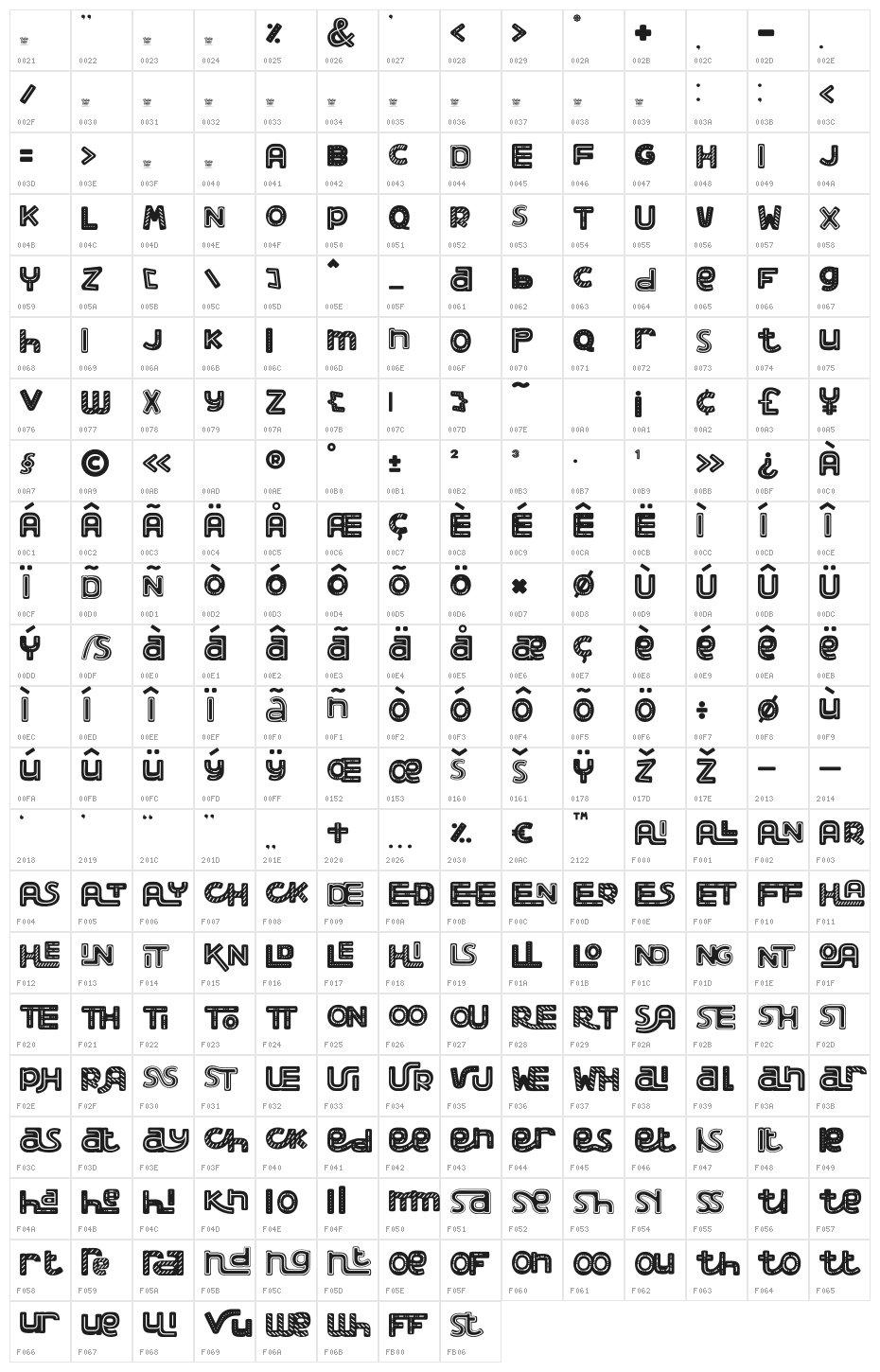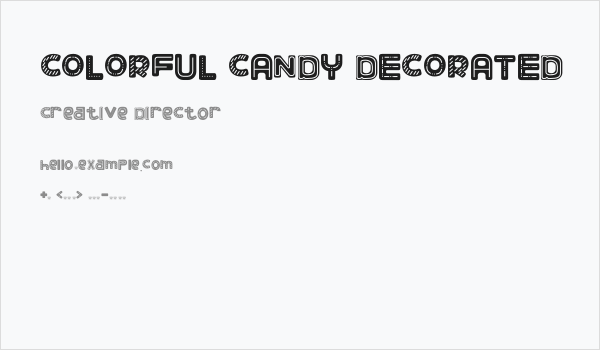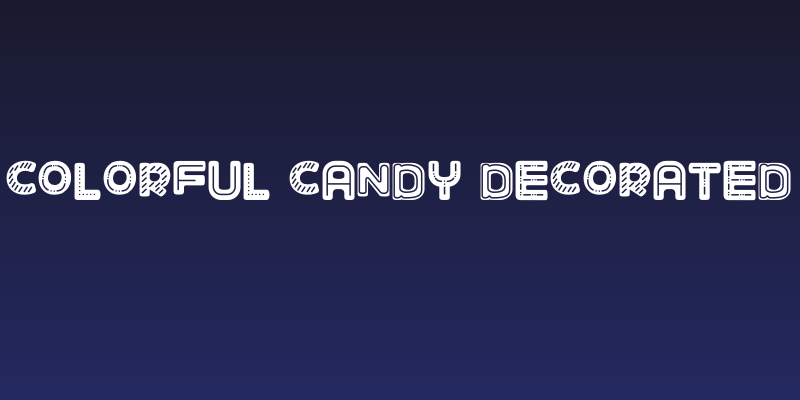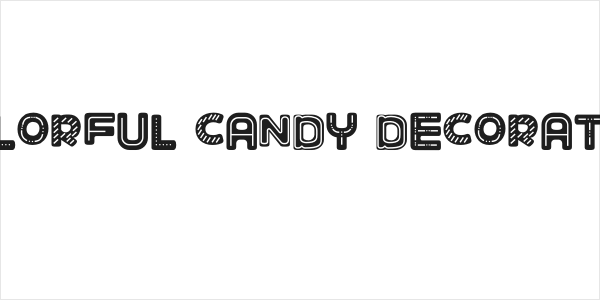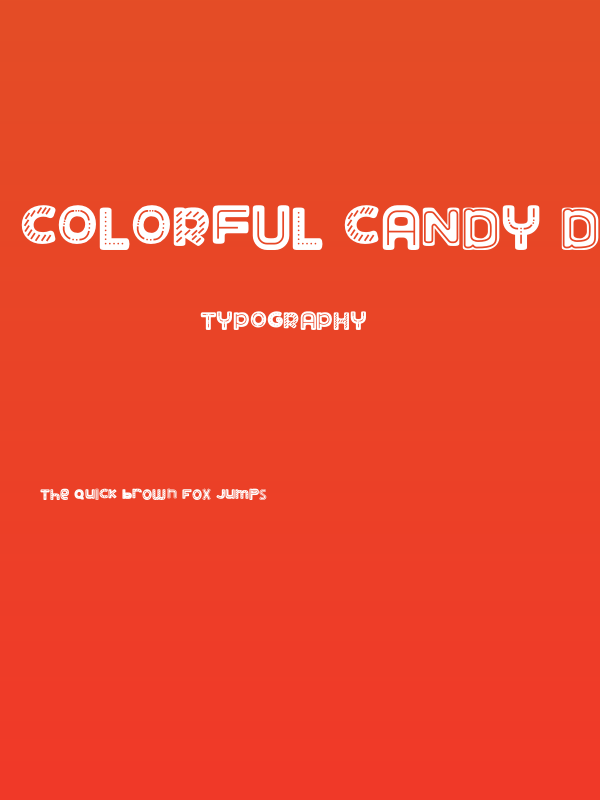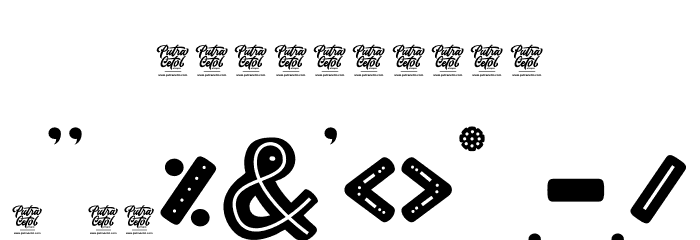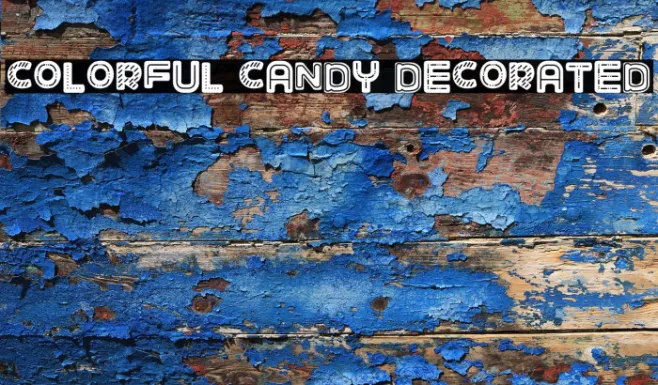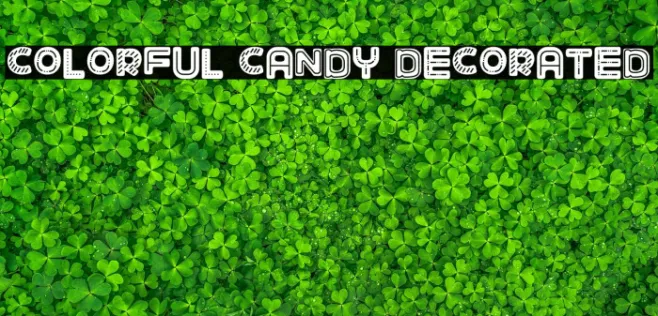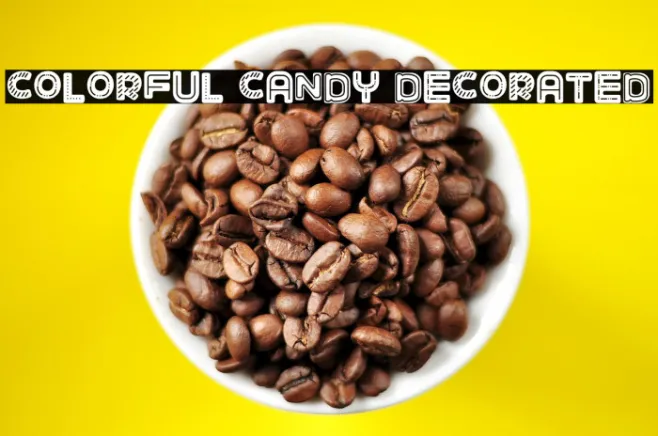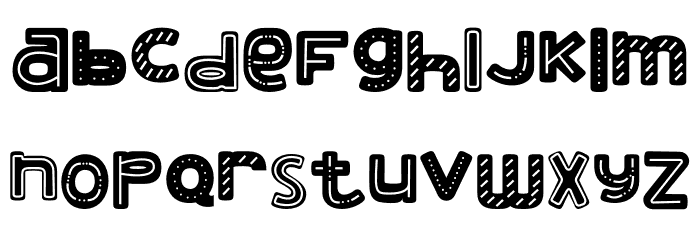
COLORFUL CANDY DECORATED Font
| Gesamtstil | Playful, Whimsical, Decorative |
| Vorgeschlagene Projekte | Ideal for children's books, party invitations, playful branding, and festive posters. |